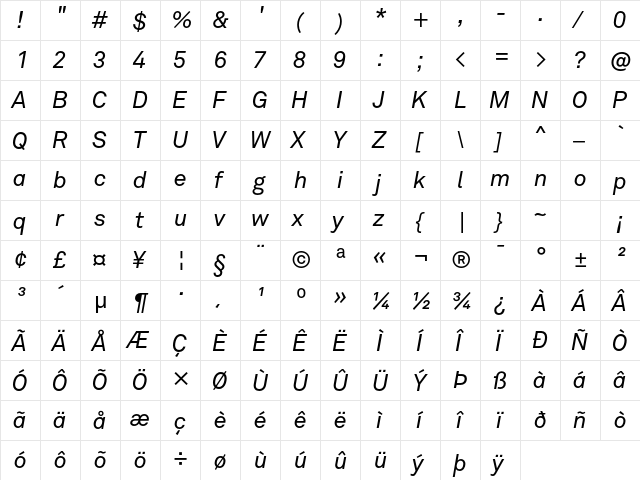
Akkurat Italic
| Foundry | Laurenz Brunner |
| Designer | Laurenz Brunner |
Design Context for Akkurat Typeface
Akkurat offers clean, dependable letterforms without strong stylistic allegiance, making it a practical choice for designers who need flexibility. Its italic angle brings a sense of urgency and motion to the letterforms.
Pro Tip: Try Akkurat for annotation and caption copy alongside an upright companion — the contrast in angle creates a dynamic but ordered typographic system.